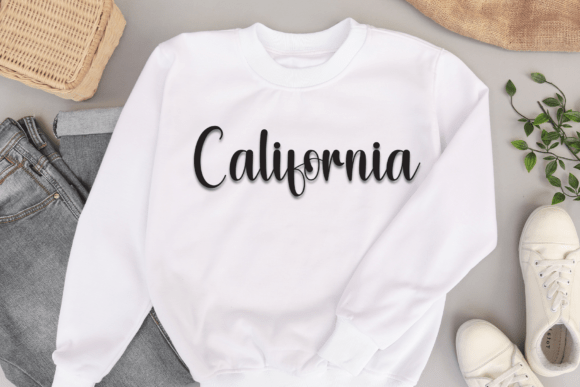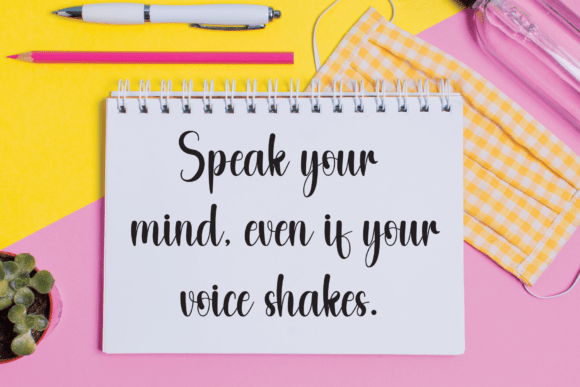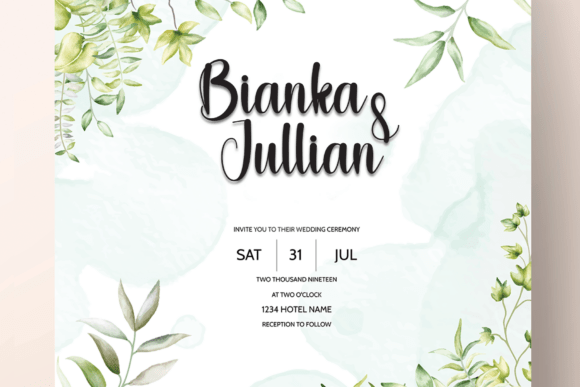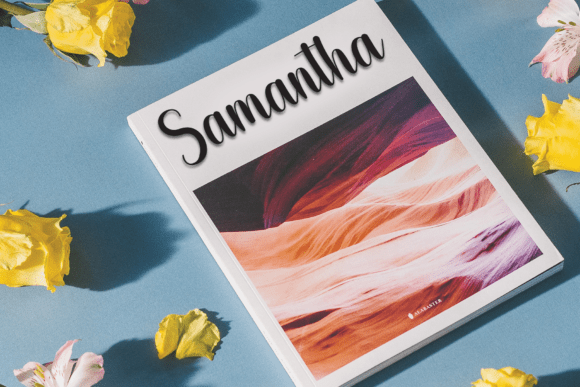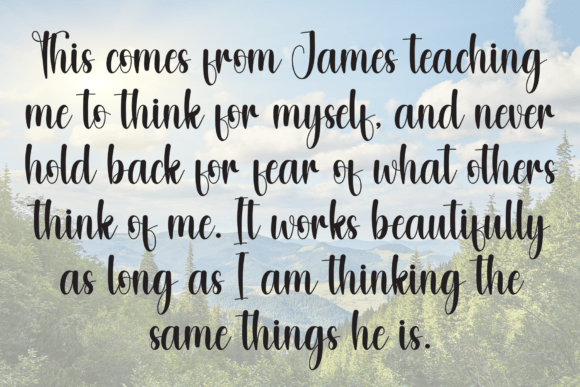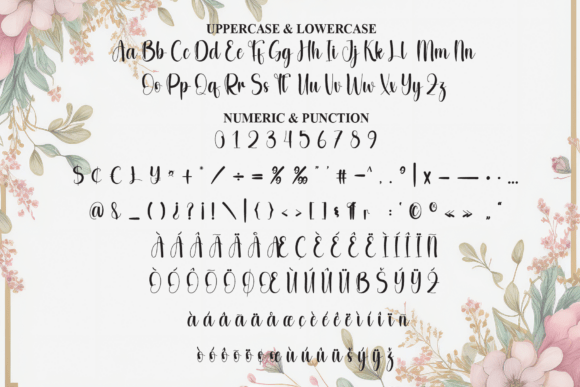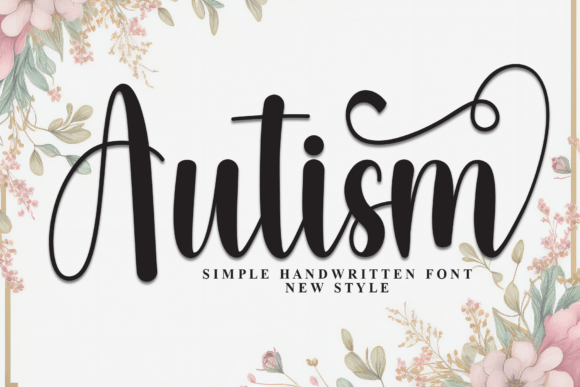
The Autism Font: A Stylish Handwritten Script to Elevate Your Designs
I’ll never forget the time I was working on a branding project for a children’s play center. My client wanted a font that was both elegant and playful, but I was struggling to find the perfect fit. That’s when I stumbled upon the Autism Font, a beautiful handwritten script that captured the perfect balance of sophistication and whimsy. In this article, I’ll share my experience with this lovely font, its features, and how to make the most of it in your designs.
An Honest Review of Autism Font
So, what makes the Autism Font so special? Let’s dive into the good stuff and a few quirks I’ve discovered.
• ✨ Elegant and flowing curves that add a touch of sophistication to any project
• 💫 Supports OpenType features, glyphs, and stylistic alternates for added versatility
• 🌈 Perfect for invitations, branding, social media, and more
While the Autism Font is an excellent choice, there are a few things to keep in mind:
• ⚠️ Some characters may not work well in all contexts, so be sure to test your text
• 🤔 Limited availability of certain language scripts, so double-check compatibility
The Story Behind Autism Font
The Autism Font was created with the goal of crafting a beautiful, elegant script that captures the essence of playfulness and sophistication. While I couldn’t find information on a specific designer, it’s clear that the font was crafted with attention to detail and a passion for typography.
Q: What type of projects is the Autism Font best suited for?
A: The Autism Font is versatile and works well for invitations, branding, social media, and more.
Q: Is the Autism Font available in multiple languages?
A: The font supports various languages, but some scripts may be limited, so be sure to check compatibility.
Q: Can I use the Autism Font in print and digital projects?
A: Absolutely! The Autism Font is suitable for both print and digital applications.